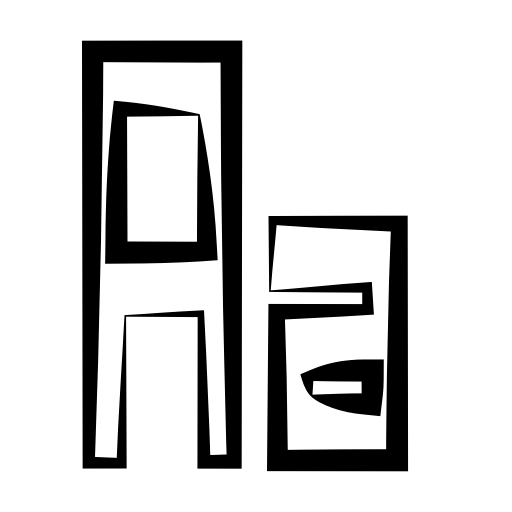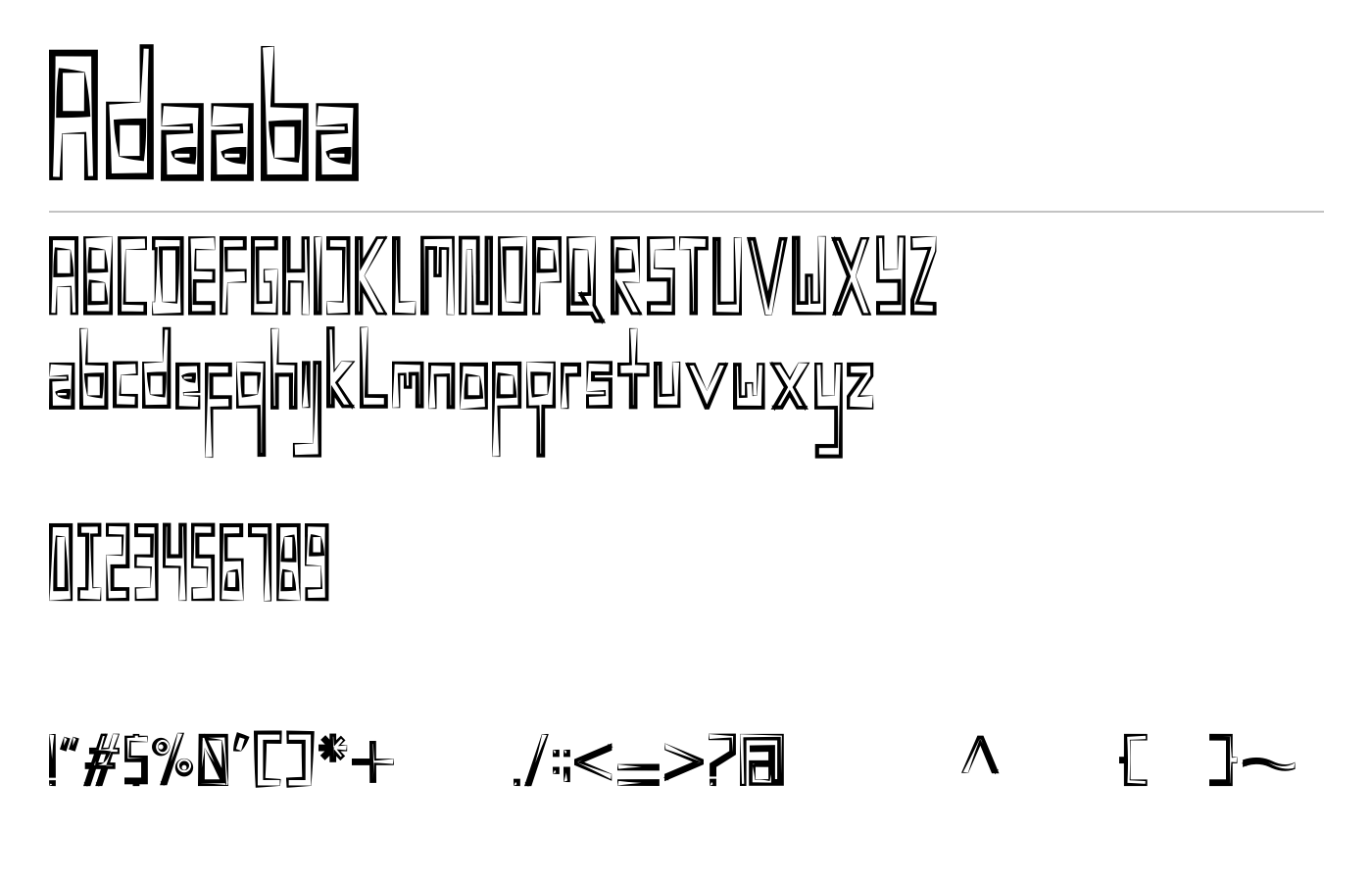
Adaaba is a quirky, narrow sans serif font with a hand-drawn, geometric feel characterized by uneven stroke widths and angular shapes. Its playful yet structured design makes it great for creative headlines, posters, or branding that seeks a distinct, artistic vibe while maintaining legibility. This font adds a unique personality to projects looking for a modern and unconventional look.
Adaaba Font
About Adaaba Font